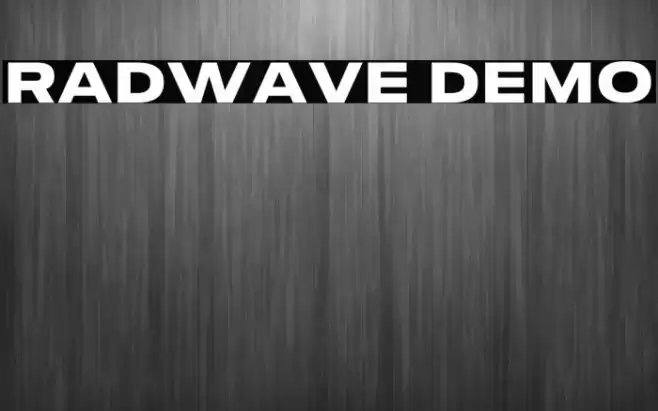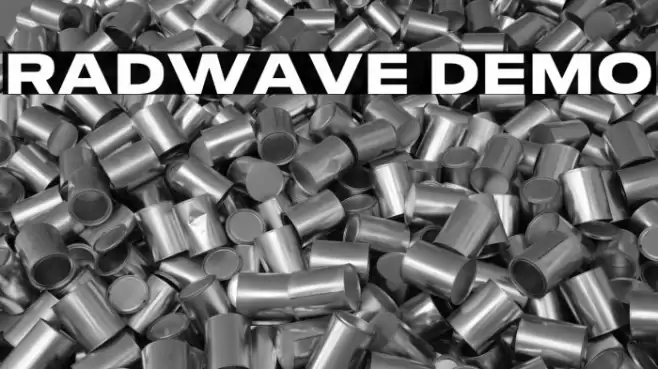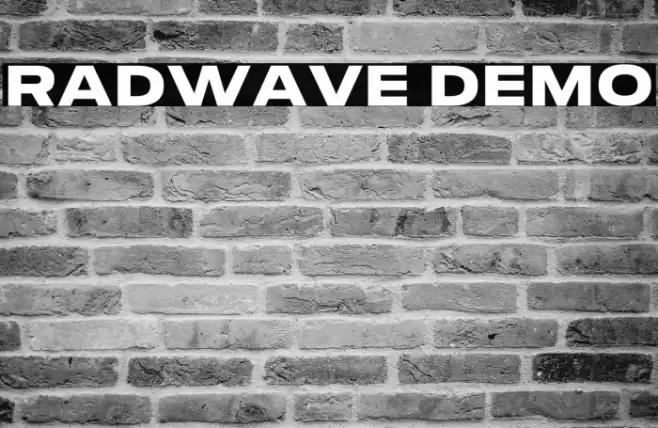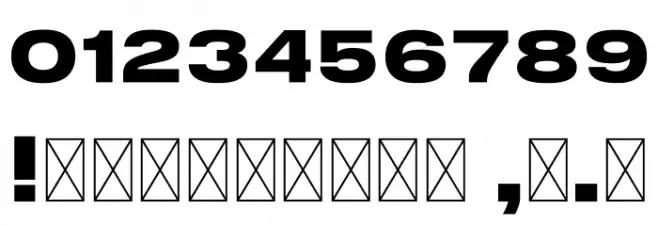
Radwave Demo Font
Radwave Demo Description
This font features a bold and modern design with strong geometric shapes and a clean, sans-serif style. The uppercase letters are uniform in height, creating a cohesive and balanced appearance. The numbers are equally bold, maintaining the same width as the letters, which ensures consistency across different types of text. The font's overall look is sleek and contemporary, making it suitable for a variety of design projects. The characters are evenly spaced, providing a clear and legible text that stands out in any context. The absence of serifs gives it a streamlined and efficient aesthetic, ideal for modern branding and advertising.
A bold, modern sans-serif font with geometric shapes and uniform spacing from Regular fonts.